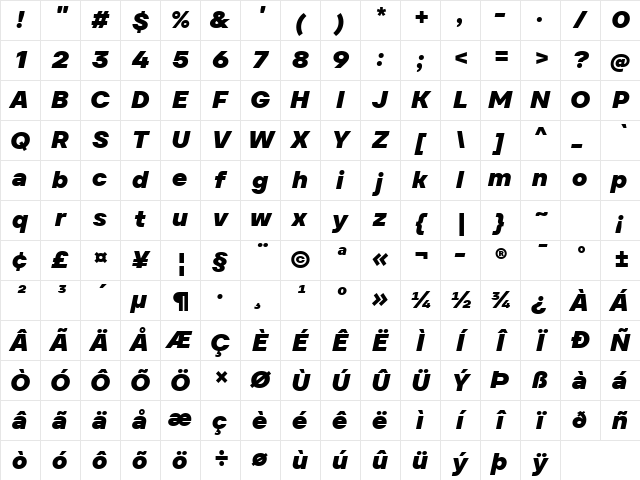
TT Firs Text Trial Black Italic Free Font
TT Firs Text Trial Black Italic
Designer: Designed by Marina Khodak, Antonina Zhulkova, Yulia Gonina, Ivan Gladkikh, Nadyr Rakhimov, Kirill Maslov, Anastasia Pogorelova, Tamara Streltsova. Technical designers Yuriy Nako, Victor Rubenko, Maria Polishchuk.
Design Context for TT Firs Text Trial
TT Firs Text Trial is a composed and adaptable typeface that performs quietly and consistently across a wide range of design contexts. The slanted form adds forward momentum and visual energy.
Pro Tip: Use TT Firs Text Trial for emphasis, pull quotes, and subheadings where its slanted energy can add rhythm to the layout.